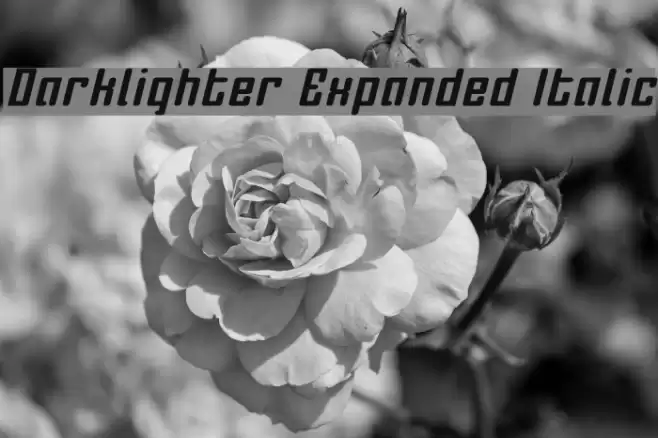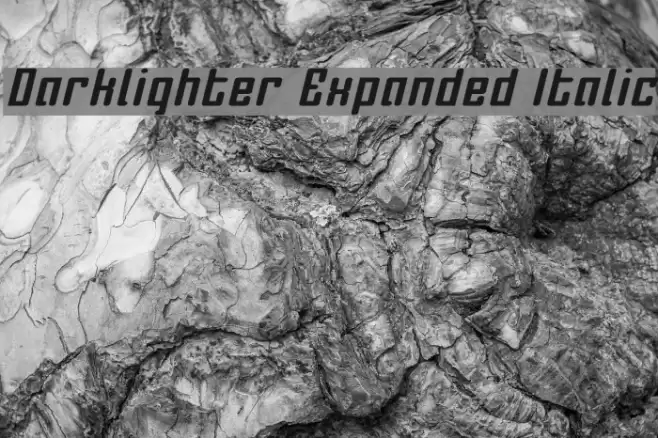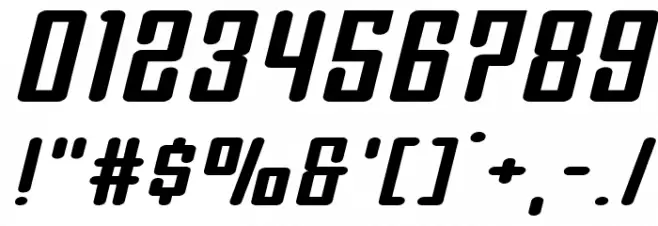
Darklighter Expanded Italic Font
Darklighter Expanded Italic Description
This font features a bold, italicized style with an expanded width, giving it a strong and dynamic presence. The characters are designed with a modern flair, incorporating smooth curves and sharp angles that create a sense of movement and energy. The uppercase and lowercase letters maintain a consistent style, with a slight slant that enhances the italic effect. Numbers and special characters are crafted to match the overall aesthetic, ensuring uniformity across all glyphs. The font's expanded width allows for greater readability, making it suitable for various design applications. Its bold weight and medium contrast in stroke thickness contribute to its striking appearance, making it ideal for attention-grabbing headlines and impactful designs.
A bold, italicized font with expanded width and modern style from Uncategorized fonts.
- Proposed Projects: Ideal for branding, advertising, posters, and headlines that require a bold and modern look.